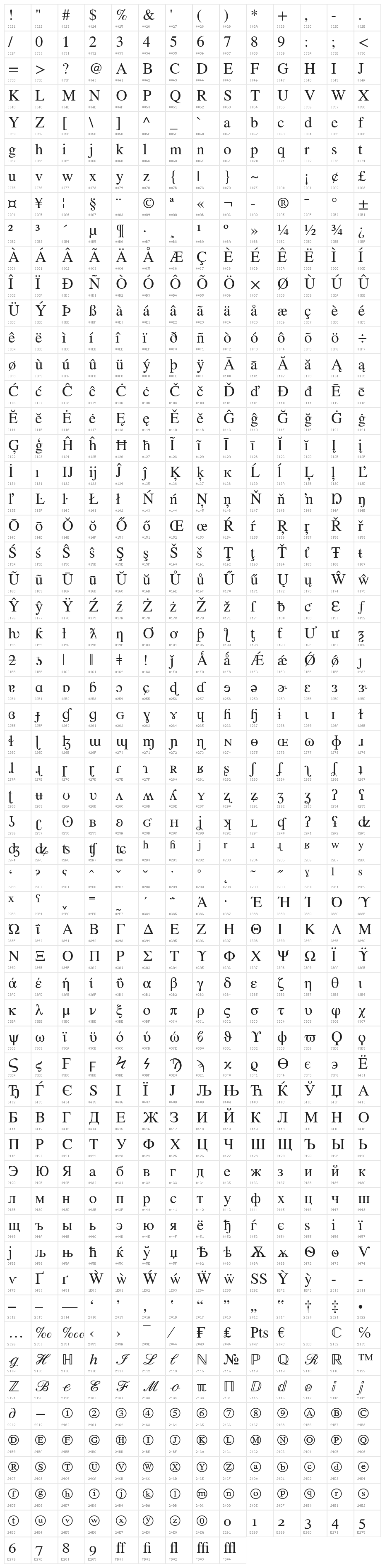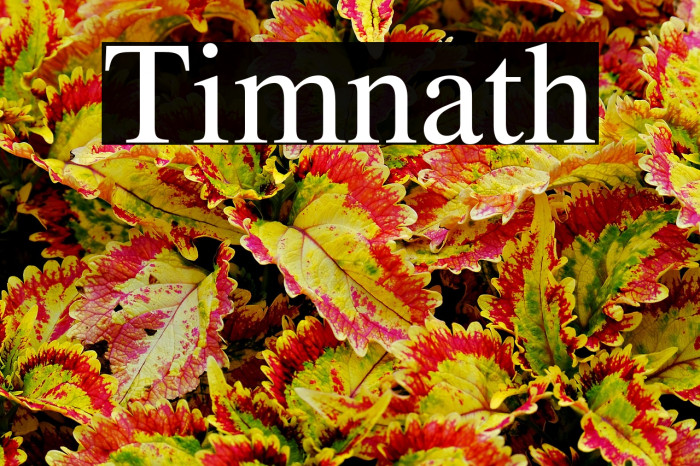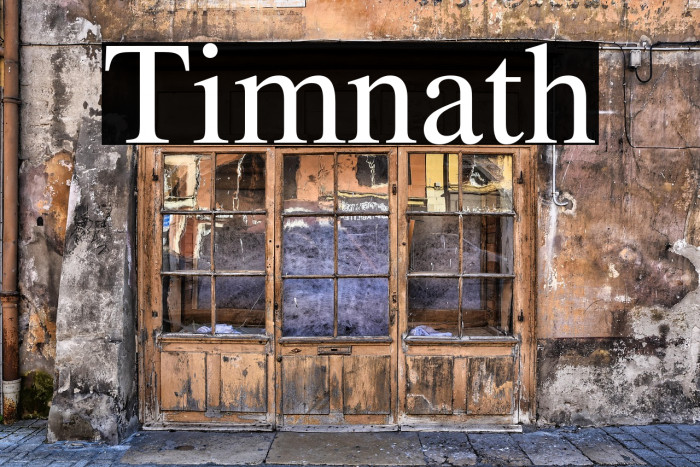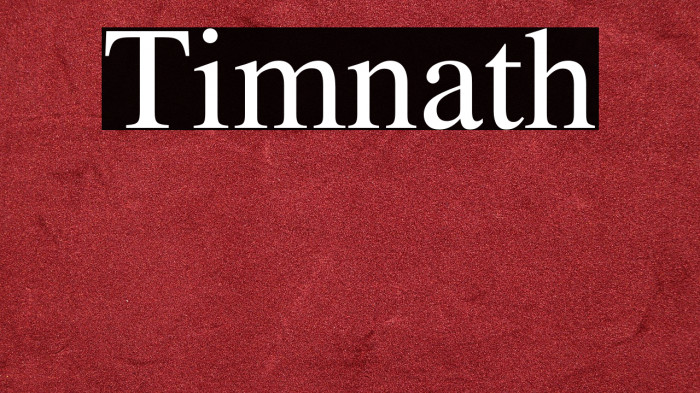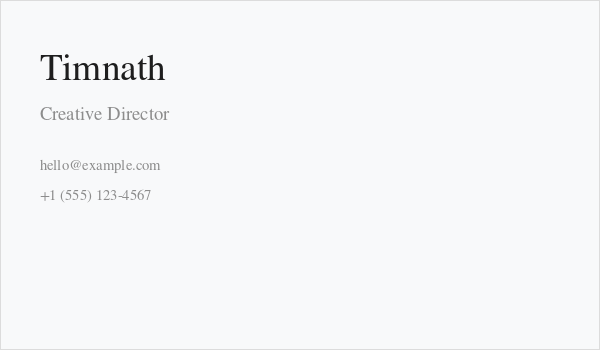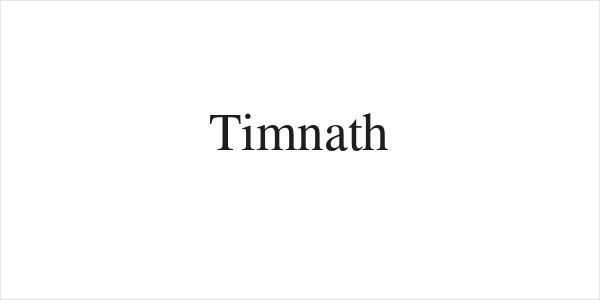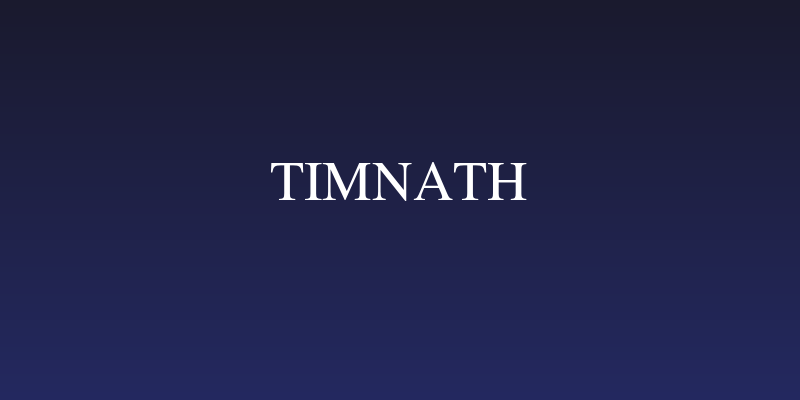
Timnath Font
Classic roman typeface, modified and curated from the STIX Fonts (TM). Free for unlimited private and commercial use. SIL Open Font Licence (OFL) Version 1.1.